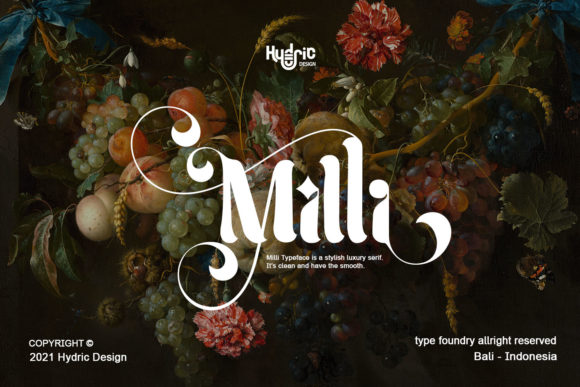
Introducing Milli Font - The Epitome of Grace and Elegance for Your Creative Endeavors
In a world where fonts are merely functional, Milli Font emerges as a breathtaking symphony of style and sophistication, beckoning you to elevate your designs to new heights of beauty and distinction. Its classic serif structure, meticulously crafted by the artisans at Hydric Design, exudes an aura of timeless elegance that will leave an indelible mark on your creative endeavors.
Immerse yourself in the world of Milli Font, where every curve and stroke is a testament to the artistry of its creation. Its clean lines and graceful flourishes evoke a sense of luxury and refinement, making it the perfect font for wedding invitations, branding projects, and any design seeking a touch of timeless elegance.
Experience the versatility of Milli Font, a font that seamlessly adapts to a myriad of design styles. Whether you're crafting a delicate wedding invitation, designing a sophisticated logo, or creating a website that exudes professionalism, Milli Font rises to the occasion, effortlessly enhancing your designs with its refined aesthetic.
Unleash your creativity and explore the endless possibilities that Milli Font presents. Its timeless appeal and versatile nature make it an indispensable tool for designers, artists, and entrepreneurs seeking to create designs that captivate and inspire.
Step into the realm of Milli Font today and embark on a creative journey like no other, where beauty and elegance converge to produce designs that leave a lasting impression. Let Milli Font be your muse, guiding you towards creative excellence.